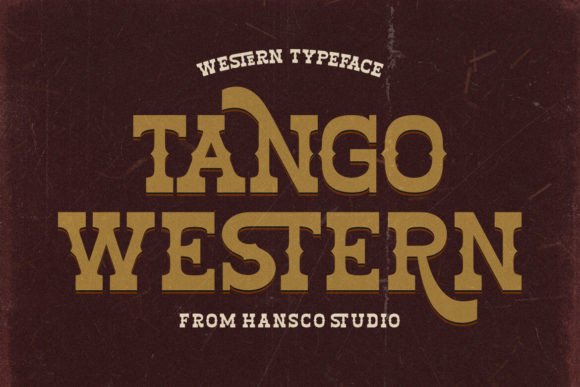
Tango Western Font: Elevate Your Designs with a Retro Vintage Touch
In the realm of typography, fonts play a pivotal role in transforming a design from ordinary to extraordinary. Among the myriad of fonts available, Tango Western stands out as a distinctive slab type font that adds a sharp, retro vintage flair to any design project. Characterized by its sharp characters on each side, Tango Western is not just a font; it’s an artistic statement that can elevate your creative endeavors to new heights.
The Essence of Tango Western Font
Tango Western is a slab type font, which means it features thick, block-like serifs at the end of the strokes. This particular style of font is known for its bold and assertive appearance, making it perfect for designs that require a strong visual impact. What sets Tango Western apart is its unique sharpness on each side of the characters, giving it a rugged and edgy look that is reminiscent of vintage typography.
Versatility in Design
One of the key advantages of Tango Western is its versatility. This font can be seamlessly integrated into a wide array of design projects. Whether you’re working on a logotype, stickers, packaging design, or even intricate Cricut projects, Tango Western can add that special retro vintage touch that makes your design stand out. Its adaptability extends to headlines, brand identity, t-shirt designs, posters, magazines, books, and digital platforms such as YouTube, Instagram, and websites.
Applications of Tango Western Font
- Logotype: Create a memorable brand logo that exudes a vintage charm.
- Stickers and Packaging Design: Add an edgy, retro feel to your product packaging and stickers.
- Cricut Projects: Perfect for DIY enthusiasts, Tango Western can be used in a variety of craft projects.
- Headlines and Posters: Draw attention with bold, vintage-inspired headlines and posters.
- Brand Identity: Establish a strong brand presence with a font that tells a story.
- T-Shirt and Apparel Industry: Design unique apparel that stands out with Tango Western.
- Magazines and Books: Add a touch of nostalgia to your publications.
- YouTube and Instagram: Use Tango Western in your video titles, thumbnails, and Instagram posts to attract attention.
- Websites: Enhance your website’s aesthetic with a font that offers a distinct retro vibe.
Why Choose Tango Western?
In a world where design trends are constantly evolving, Tango Western offers a timeless appeal that can set your designs apart. Here are a few reasons why Tango Western should be your go-to font for adding a retro vintage touch:
Unique Aesthetic
Tango Western’s sharp characters and slab serif design offer a unique aesthetic that is hard to find in other fonts.
Versatility
Its adaptability to various design projects makes it a valuable addition to any designer’s toolkit.
Timeless Appeal
While trends come and go, the vintage charm of Tango Western remains timeless, ensuring your designs stay relevant.
- Experiment with Sizes: Tango Western can make a bold statement in large sizes, but it also works well in smaller sizes for more subtle designs.
- Play with Colors: The font’s vintage charm can be accentuated with the right color choices. Earth tones, metallic colors, and bold contrasts can enhance its retro appeal.
- Combine with Other Fonts: While Tango Western is bold on its own, it can also be paired with other fonts for a more dynamic design. Choose fonts that complement its slab serif style.
Tango Western is more than just a font; it’s a design statement that can add a unique retro vintage touch to your projects. Its sharp characters, slab serif design, and versatility make it an excellent choice for a wide range of applications. Whether you’re a professional designer or a DIY enthusiast, Tango Western can elevate your designs and give them a timeless appeal. So, why settle for ordinary when you can add an extraordinary touch with Tango Western Font?